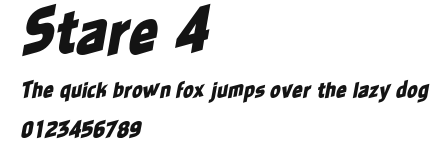
• Font Name: Stare 4
• Full Font Name: Stare 4
About Stare 4.ttf
Stare 4.ttf is a modern, elegant sans-serif font designed for ultimate readability and visual harmony. Perfect for branding, headlines, web design, and print materials.